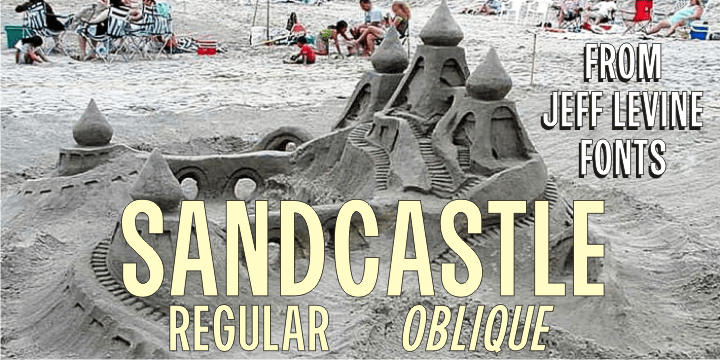
Sandcastle
Based on a popular design of the 50s-60s, Sandcastle JNL has the retro-casual charm of many prints ads of that era. It lends itself well to headlines, price tags, announcements, name plates and just about anything that recreates the mid-century panache.
Sandcastle JNL Regular by Jeff Levine Fonts